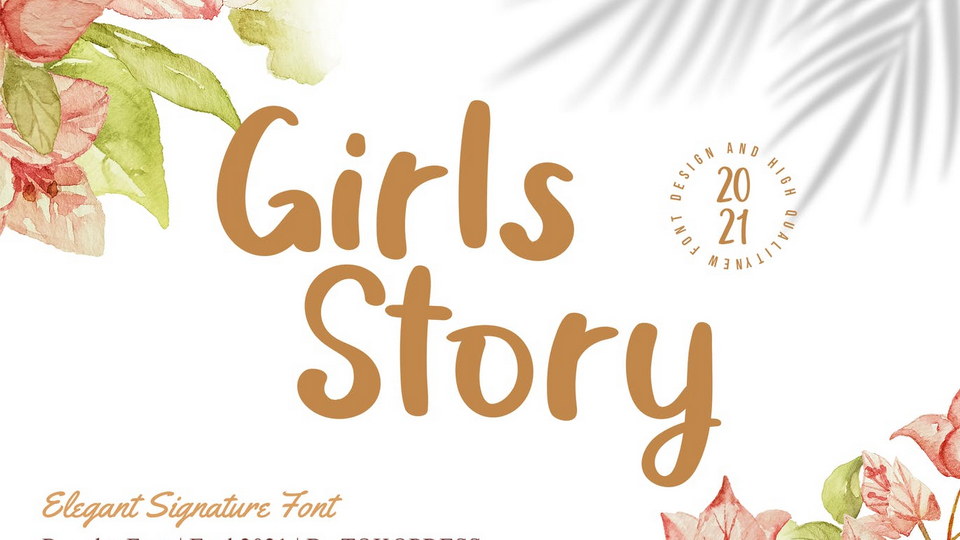
Download Girls Story font, a fancy handwriting typeface. Girls Story font suits perfectly for girl/ woman/ elegant segmented magazine, poster, movie title and so on.